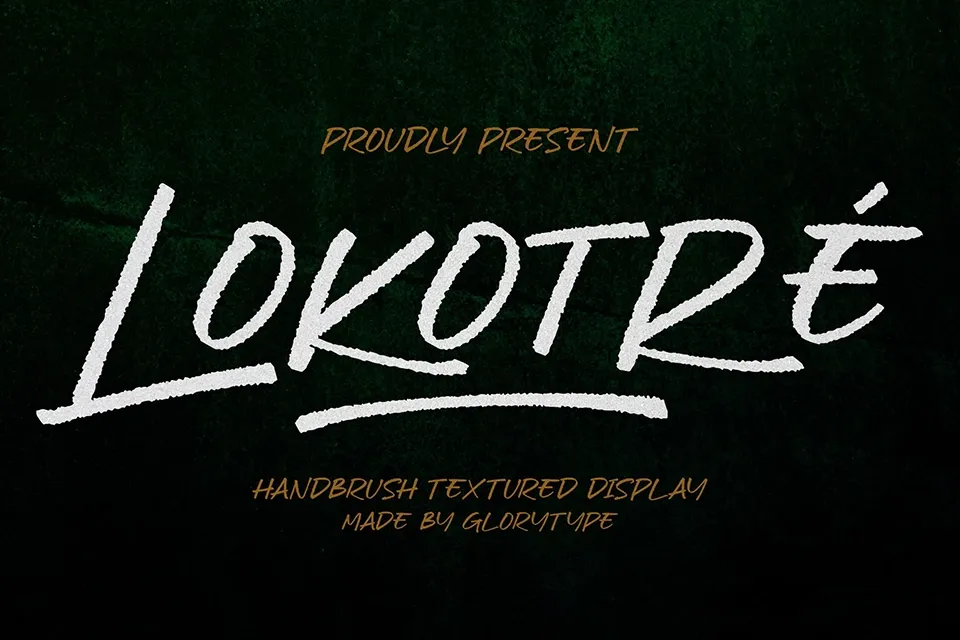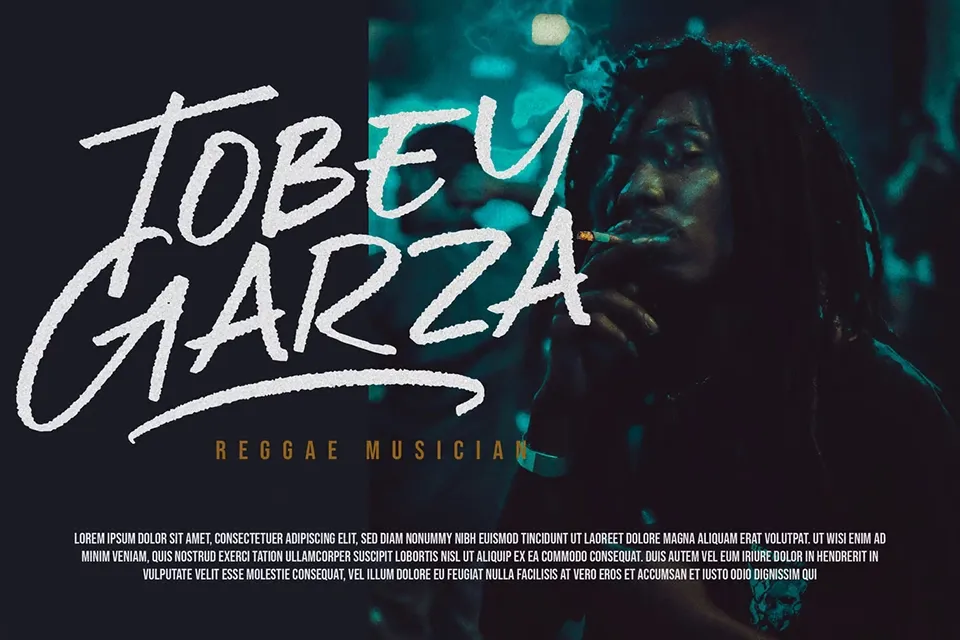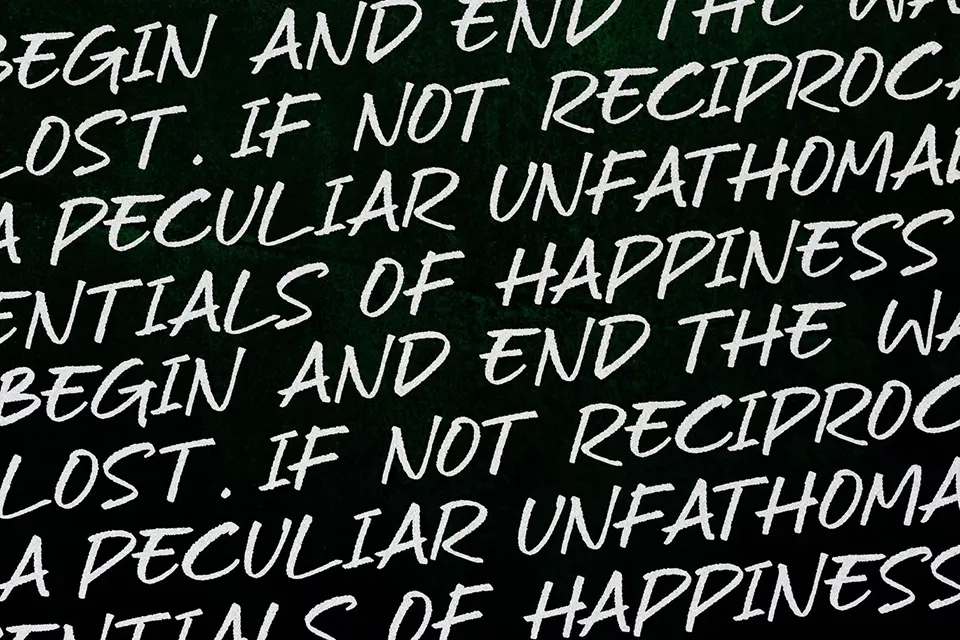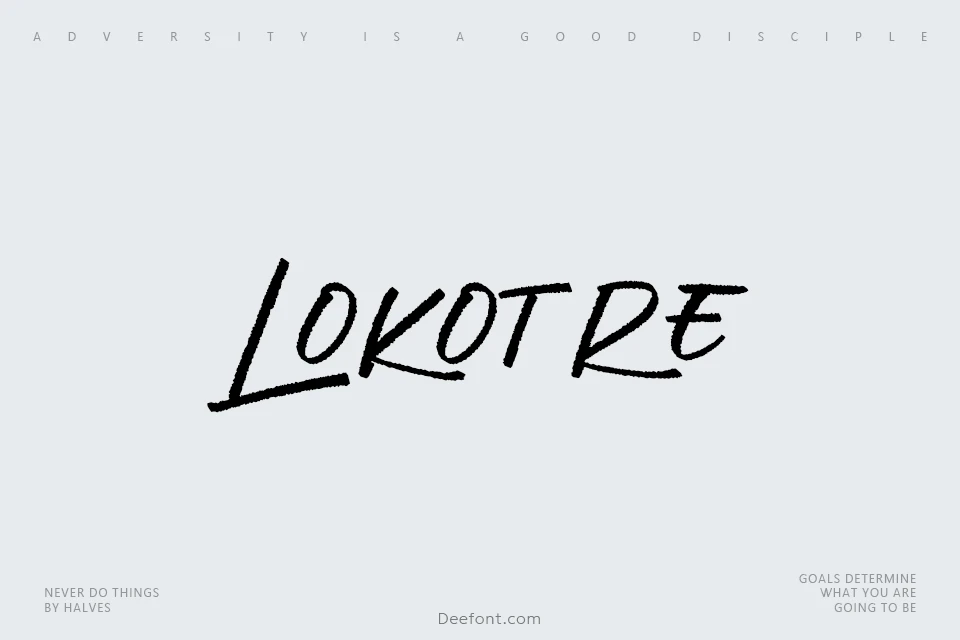
Lokotre Font
Lokotre Font is a dynamic handbrush textured display font designed by Glorytype. This energetic typeface boasts authentic brush strokes and a textured finish, giving it a raw, handcrafted appeal. Its bold, slightly slanted letterforms convey motion and personality, making it perfect for eye-catching headlines, logos, posters, branding, and apparel designs. Lokotre brings an organic, expressive touch to any project needing a burst of energy and a unique, handmade aesthetic. Use it to add character and make a strong visual statement with its distinctive, textured style.